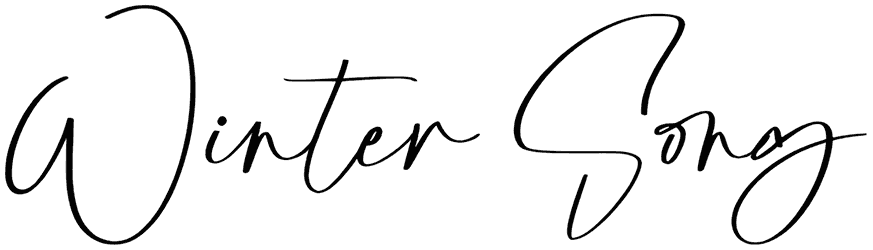
Winter Song Font
Full of a classic and dapper mood, Winter Song is in a handwritten font. This autograph font can be harmonized with any theme and beautifully enrich the text. Give a blissful face to your upcoming project with Winter Song, such as invitation cards, fashion-related designs, handwritten quotes, or anything else you want to seem noble.